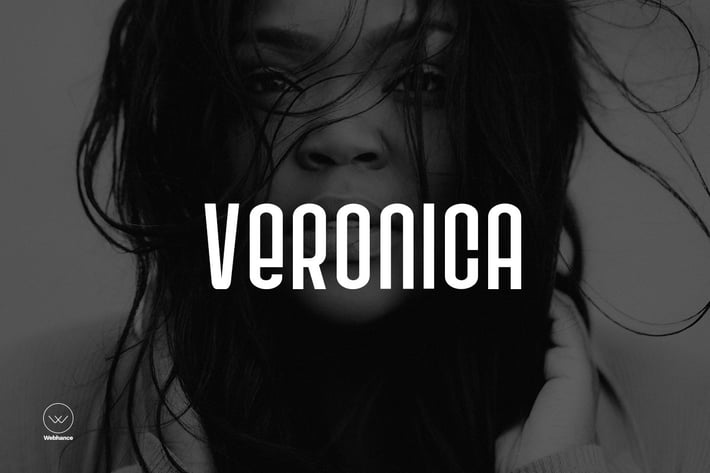
Veronica Display Typeface + Webfonts
Veronica Display Typeface
Veronica is a new modern font family with versatility in creativity. Unique with its attractive Sharpness. Veronica is perfect for branding, editorial designs, signage designs, also work great for UI Elements.